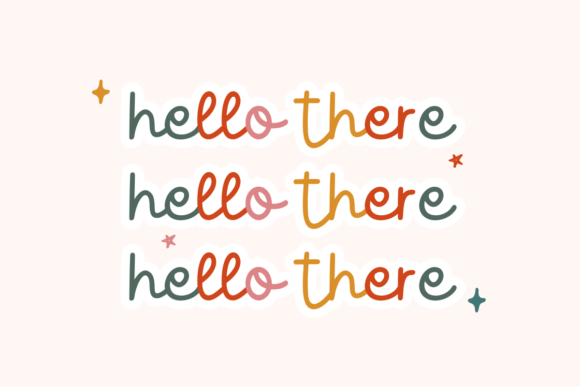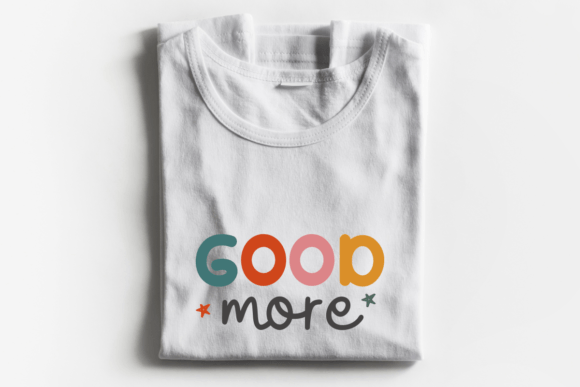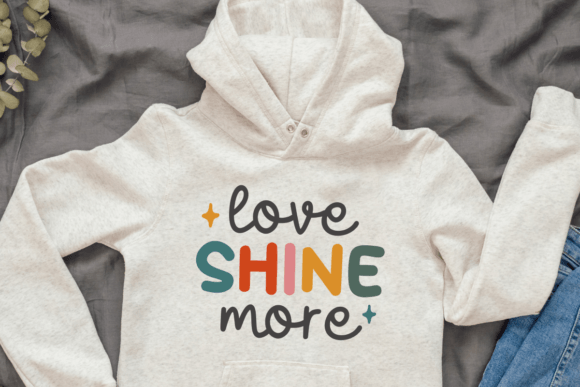
Introduction to Rainbow Weekday Duo Font
As a designer, there’s nothing quite like the thrill of seeing your creative project come to life. But sometimes, it’s the little things that make all the difference – like the perfect font. I still remember the day I stumbled upon the Rainbow Weekday Duo Font, and how it instantly transformed my design. The Rainbow Weekday Duo Font is more than just a pretty face – it’s a game-changer for designers looking to add a touch of personality to their work.
With its harmonious blend of playful charm and elegant beauty, the Rainbow Weekday Duo Font is a valuable design resource that can elevate even the most mundane projects. Whether you’re working on a high-quality graphic design, creating a custom apparel design, or simply need a free download for a quick project, this font duo is sure to impress. Plus, its transparent background makes it a breeze to work with, allowing you to focus on the creative aspects of your design.
So, what makes the Rainbow Weekday Duo Font so special? For one, its display and script styles offer endless possibilities for creative expression. From heartwarming quotes to wedding invitations, this font duo has got you covered. And with its high-quality design, you can trust that your projects will look their best. Whether you’re a seasoned designer or just starting out, the Rainbow Weekday Duo Font is an essential addition to your design toolkit.
Key Features of Rainbow Weekday Duo Font
- Unique and playful design perfect for creative projects and modern designs.
- Includes a wide range of characters, including uppercase and lowercase letters, numbers, and punctuation marks.
- Designed to be versatile and easy to use, making it perfect for a variety of creative projects.
Honest Review: Rainbow Weekday Duo Font
As a designer, I’m always on the lookout for high-quality design resources that can elevate my creative projects. Recently, I came across the Rainbow Weekday Duo Font, and I’m excited to share my thoughts on it.
- 🌈 The font’s playful and vibrant color scheme adds a pop of fun to any project.
- ✨ The transparent background feature allows for easy layering and customization.
- ⚠️ The font may not be suitable for professional or formal projects due to its playful nature.
- ⚠️ Some users may find the font’s bold and bright colors overwhelming.
Overall, I’m impressed with the Rainbow Weekday Duo Font’s unique design and versatility. It’s perfect for creative projects that require a fun and engaging touch. While it may not be suitable for all design applications, it’s an excellent addition to any designer’s toolkit.
Experiment with different font sizes, colors, and styles to create a unique visual effect. Combine the Rainbow Weekday Duo Font with other design elements to add depth and interest to your design. Use it for headings, titles, or body text to create a cohesive and engaging visual identity.
The Rainbow Weekday Duo Font is suitable for a variety of creative projects, including social media graphics, posters, flyers, and presentations. Its unique design and high quality make it a valuable design resource for both personal and professional projects.
What is the recommended usage for the Rainbow Weekday Duo Font?
The Rainbow Weekday Duo Font is designed for use in a variety of creative projects, including logos, branding, and graphic design. It’s a versatile font that can be used in both digital and print media. For best results, use it in conjunction with other high-quality design resources to create a cohesive and visually appealing design.